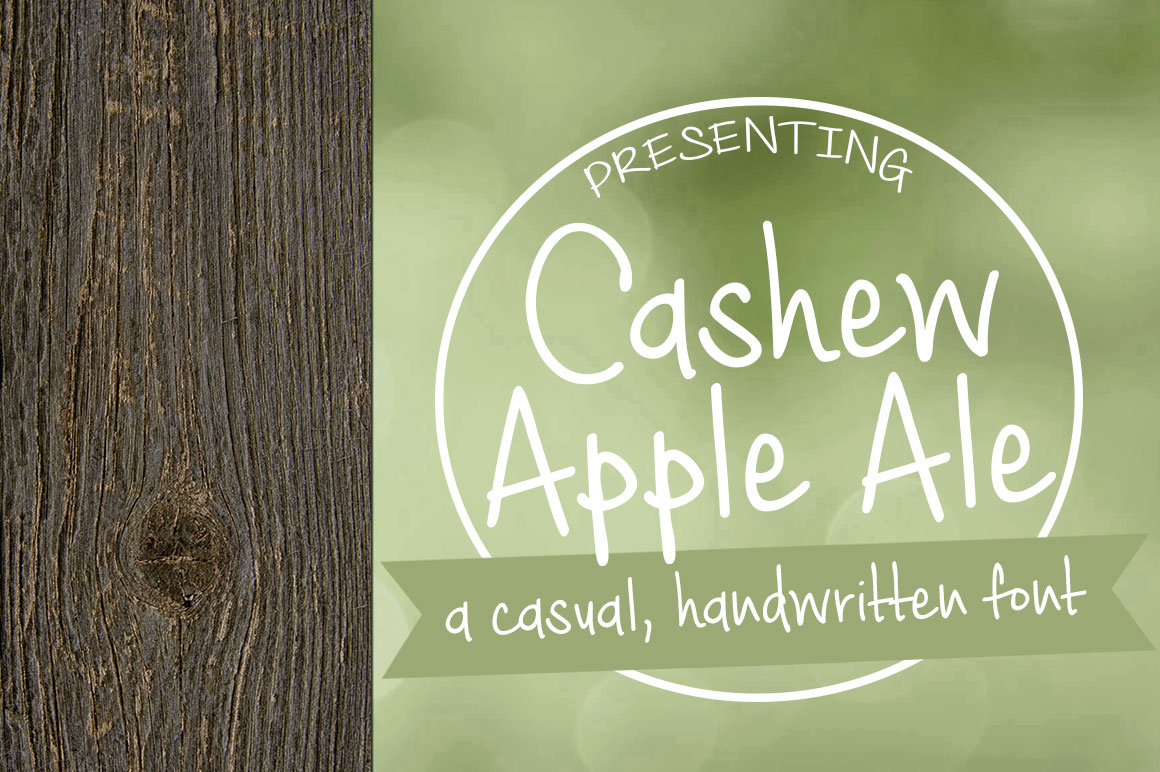
HomeScript FontsCashew Apple Ale Font Script Fonts Cashew Apple Ale Font FacebookXPinterestWhatsApp About Cashew Apple Ale Font Cashew Apple Ale is a casual, handwritten font. Pretty, but legible! Great for both headlines or content. DOWNLOAD ON CREATIVE FABRICAThis font is sold and delivered by Creative Fabrica. Font Canyon may earn a commission if you buy through this link. People also explored South Font Halloween Rules Font Whiteland Font Abustha Font Meghina Font BlueBird Font Romello Font Giraffe Marsheilla Font 405 0 TagsCashew Apple Ale Font Previous articleCuddlebugs FontNext articleCashew Apple Ale Bold Font LEAVE A REPLY Cancel reply Comment: Please enter your comment! Name:* Please enter your name here Email:* You have entered an incorrect email address! Please enter your email address here Website: Save my name, email, and website in this browser for the next time I comment. Personal Use Free Abuget Free Script Personal Use Free Read more about this font Carrolina Personal Use Free Read more about this font Potato Pancakes Personal Use Free Read more about this font Colombia Personal Use Free Read more about this font BLOG How to Cut Any Font on Cricut: Convert a Font to SVG (Free) Turn any font into a clean SVG so it cuts crisp on Cricut - a quick 3-step workflow using a free font-to-SVG tool. Fonts That Capture the Spirit of New York City How to Install and Use Fonts on Windows, macOS, and Web Projects The 10 Best Handwriting Fonts to Add Personality to Your Designs